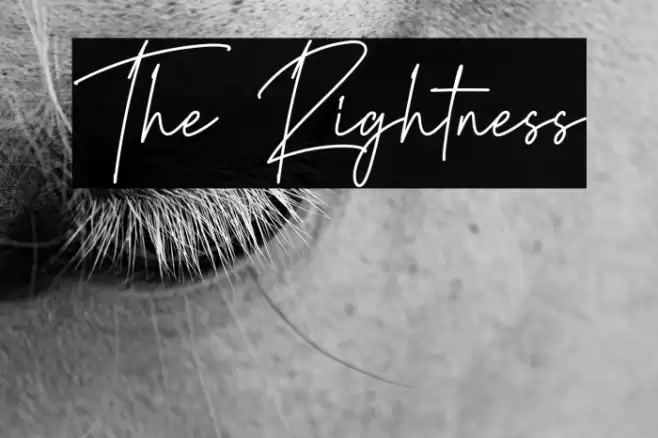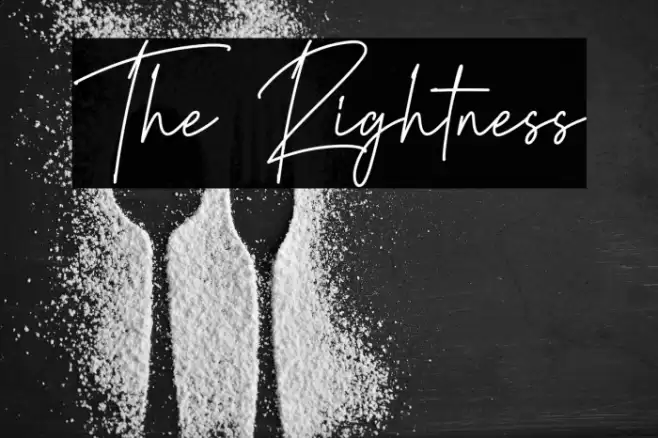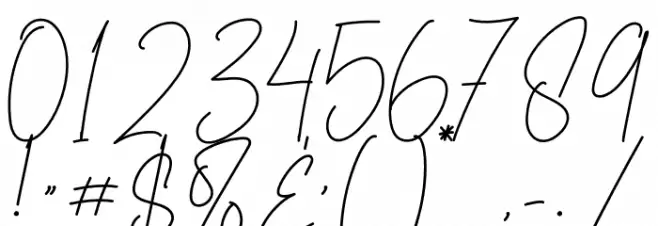
The Rightness Font
The Rightness Description
This font features a dynamic and expressive handwritten style, characterized by its fluid and continuous strokes. The letters are elegantly elongated with a slight slant, giving it a natural and spontaneous appearance. The uppercase letters are bold and prominent, while the lowercase letters maintain a consistent flow, enhancing readability. Numbers and special characters are crafted with the same fluidity, ensuring a cohesive look across all elements. The overall design exudes a sense of creativity and personal touch, making it ideal for projects that require a humanistic and approachable feel.
A fluid and expressive handwritten font with elongated, slanted strokes from Regular fonts.
- Proposed Projects: Ideal for personal branding, creative invitations, greeting cards, and artistic projects.
- Use Case: Logos, Invitations, Greeting Cards